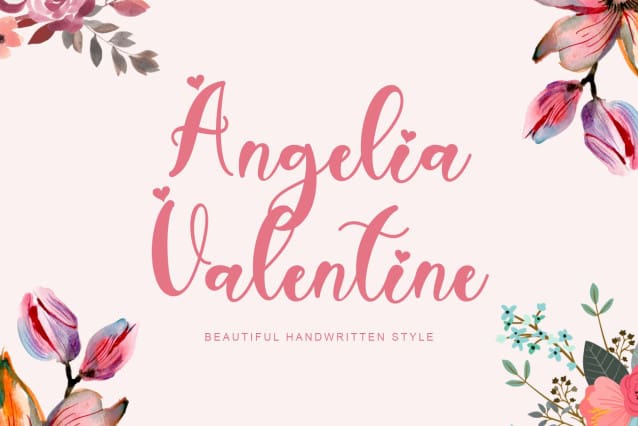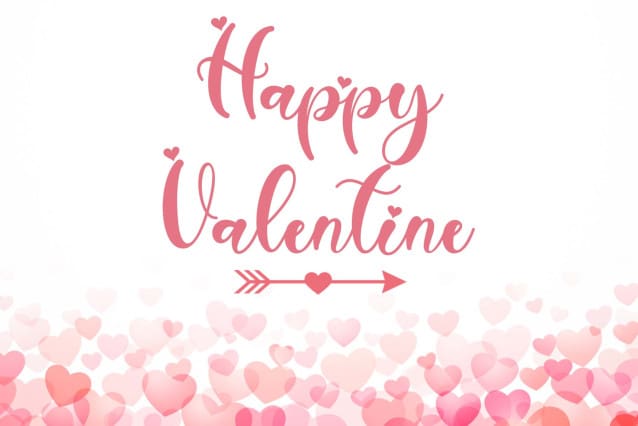
Angelia Valentine Font
Angelia Valentine Font is a beautiful handwritten font. This font is equipped with uppercase, lowercase, numerals, punctuation, and multilingual support. Very suitable for Valentine’s Day, weddings, engagements, invitations, logos, winter, spring, gifts, branding, banners, posters, and others.